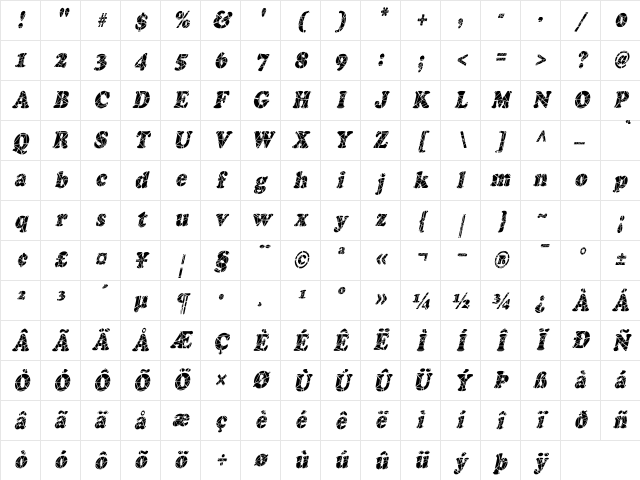
Marshmallow-Cracked-Condensed Italic
Design Context for Marshmallow-Cracked-Condensed
Marshmallow-Cracked-Condensed is a composed and adaptable typeface that performs quietly and consistently across a wide range of design contexts. The slanted form adds forward momentum and visual energy. Its narrow stance lets it pack a punch even in space-constrained designs.